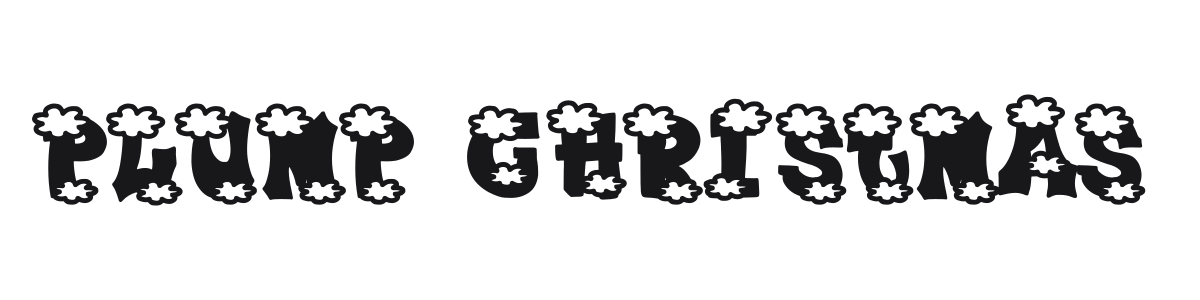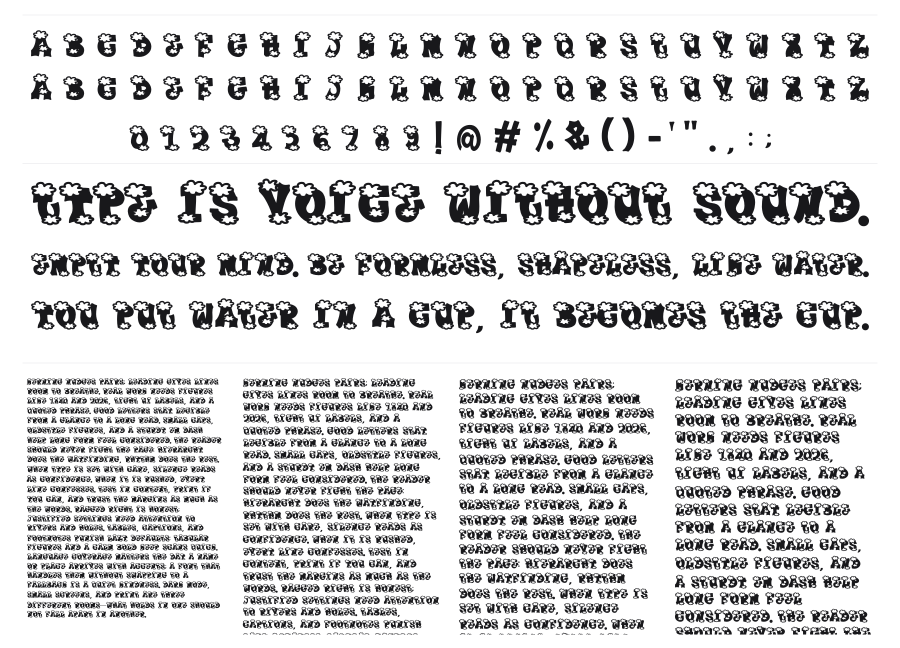
Plump Christmas
Plump Christmas is a heavy, ornament-laden display font built around chunky retro-groovy characters with embedded snowflake decorations throughout. Every letter sits thick and rounded, giving the alphabet a warm, inflated presence that reads instantly as holiday. The snowflake motifs integrated into the strokes make it a standalone headline without needing extra decoration.